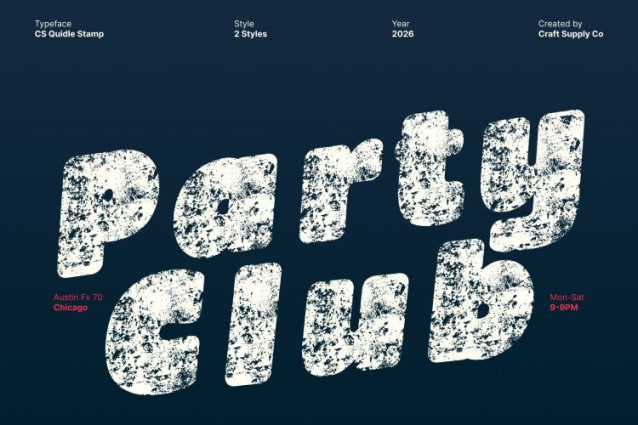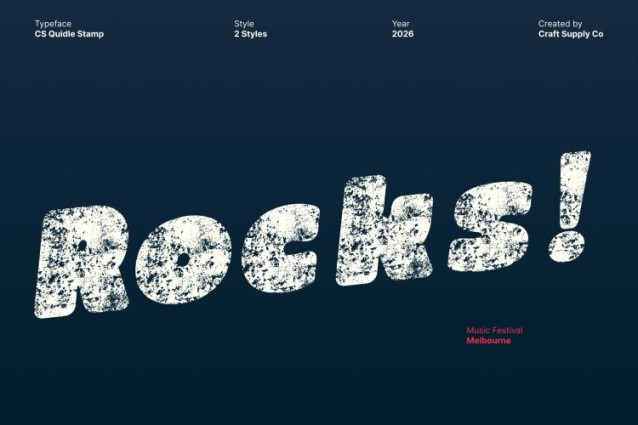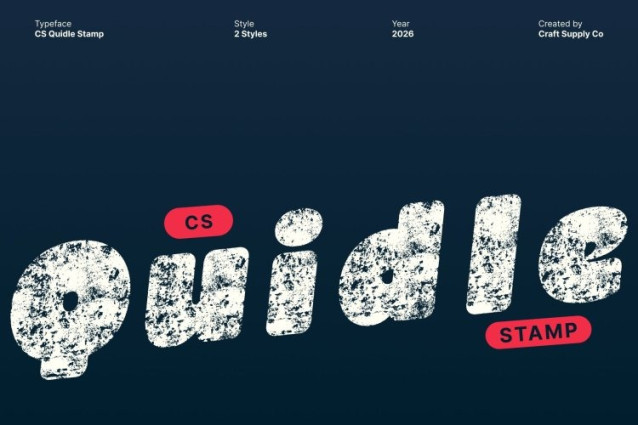
CS Quidle Stamp Font
CS Quidle Stamp Font This is a bold, chunky display font designed to make a joyful and confident statement. Built with strong geometric shapes and soft, friendly letterforms, this typeface delivers a modern, cute style enriched by a distinctive stamp texture. The stamped effect adds a touch of vintage character and handcrafted warmth, giving the font extra personality and visual depth.
Quirky Details with Textured Expression
Playful quirks in each letter create a whimsical and engaging look, while the stamp texture introduces subtle imperfections that make the design feel organic and lively. This combination enhances visual interest and helps headlines, posters, and packaging designs stand out with fun, creative energy.
Thick Strokes for Bold, Textured Impact
With its thick strokes and clean structure, this font ensures excellent readability while commanding attention. The textured finish prevents the bold forms from feeling flat, making it ideal for eye-catching headlines, social media graphics, product packaging, and expressive branding.
Versatile for Fun and Creative Projects
From playful branding and advertising to editorial layouts and merchandise, balances cheerful flair with confident presence. Its fusion of chunky forms and vintage stamp texture makes it a versatile choice for designers who want bold typography with personality and charm.